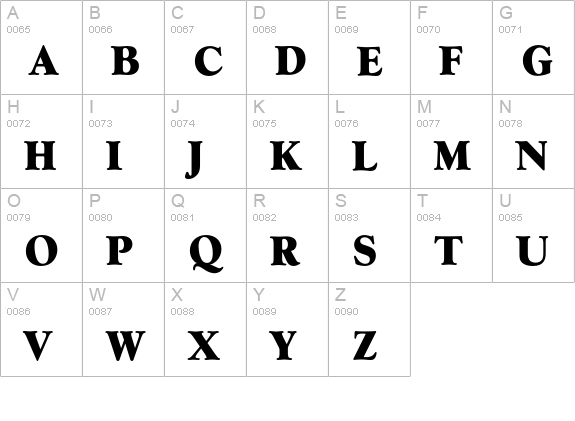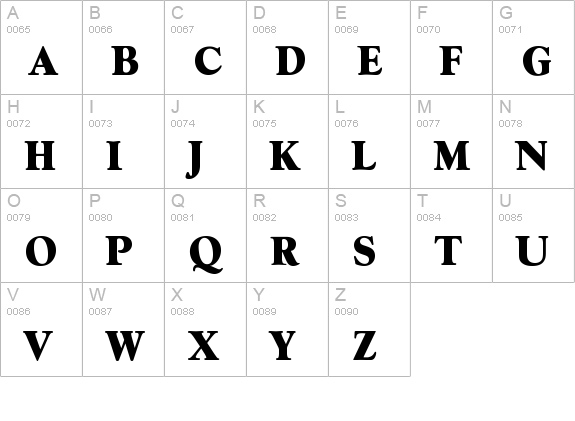
Goudx-ExtraBold Font Details
Goudx-ExtraBold is an extra-heavy, attention-grabbing variant in the Goudx typeface family \xE2\x80\x94 well suited to high-impact headlines, posters, and bold branding.
Introducing Goudx-ExtraBold, a striking and modern font that commands attention with its bold and impactful presence. This font exudes confidence and strength, making it perfect for headlines, titles, and any design project that requires a strong typographic statement. The thick, heavy strokes of Goudx-ExtraBold give it a solid and authoritative feel, while its sharp edges and clean lines add a touch of sophistication. Best of all, Goudx-ExtraBold is available for free download at FontsMarket.com, making it easily accessible for designers and creatives looking to add a touch of boldness to their work. Whether you're designing a poster, logo, or branding materials, Goudx-ExtraBold is sure to make a lasting impression with its bold and powerful aesthetic. Download Goudx-ExtraBold today and unleash the full potential of your designs with this striking and impactful font.